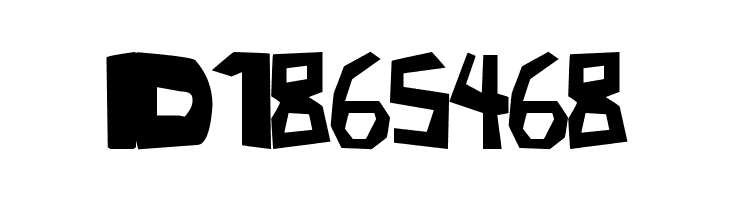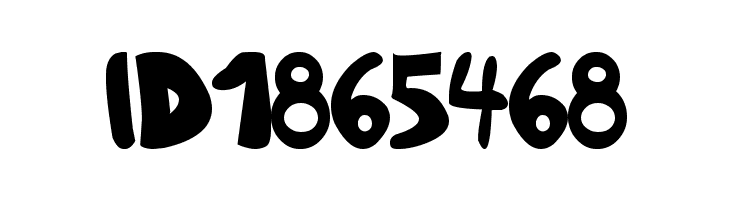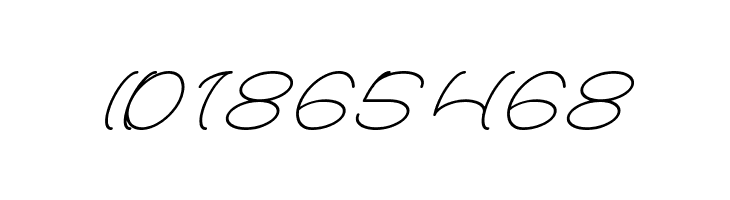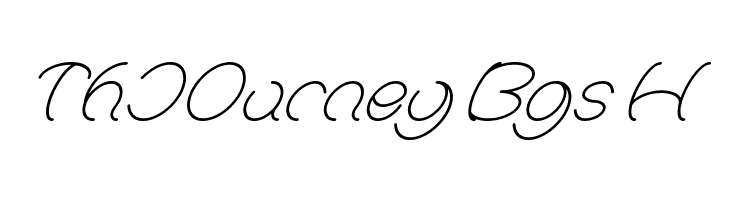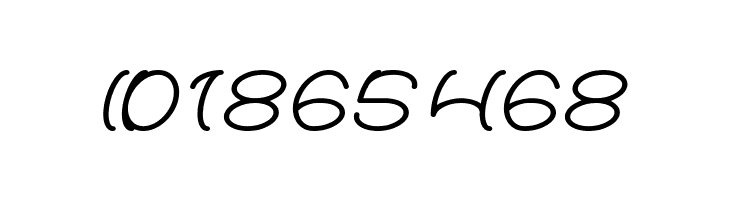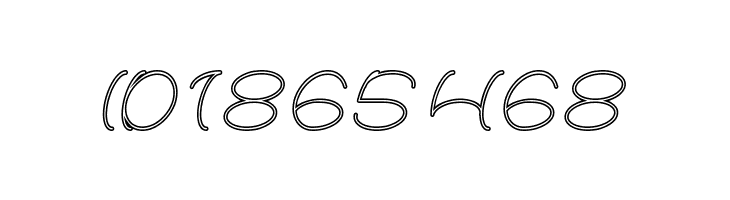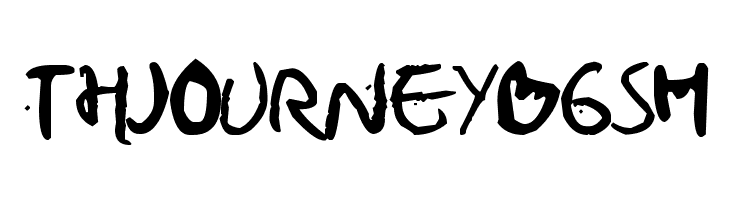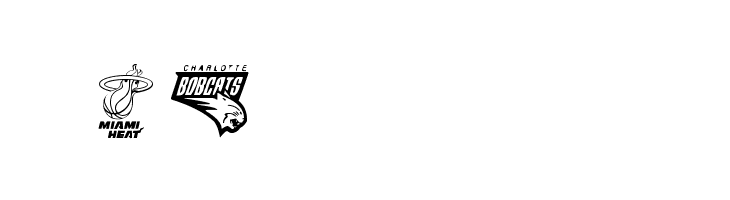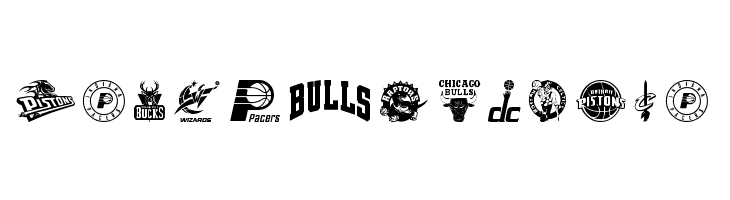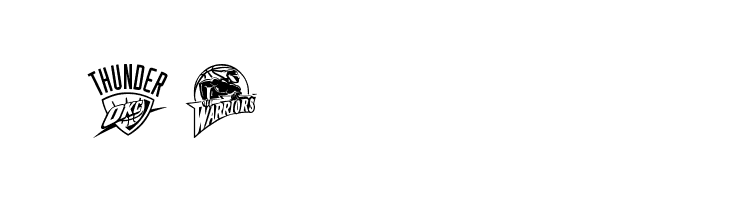
A playful, bold font with rounded, decorative letterforms.
A dynamic, cursive script font with a handwritten feel.
A graceful script font with flowing, cursive lines and elegant flourishes.
An elegant, flowing script font with a handwritten style.
A bold, decorative font with leaf and vine embellishments, perfect for creative projects.
A playful and elegant handwritten script with flowing, interconnected strokes.
A playful, bold script font with a whimsical, hand-drawn style.
A playful and elegant script font with decorative swirls and loops.
A bold, playful handwritten font with thick, rounded strokes.
A playful, hand-drawn font with rounded edges and a whimsical style.
A playful, hand-drawn outline font with a whimsical and casual style.
A lively, handwritten font with fluid strokes and playful curves.
A sleek, modern font with clean, geometric lines and a minimalist style.
A playful, bold, and hand-drawn font with rounded strokes and a dynamic slant.
A modern, flowing script font with elegant, slanted characters.
A playful and whimsical font with dynamic, slanted letterforms.
A bold, playful handwritten font with thick strokes and dynamic shapes.
A playful, handwritten font with rounded edges and a casual style.
A playful, handwritten font with rounded, slightly irregular letterforms.
A playful and whimsical font with bold, dynamic letterforms and a unique style.
A playful and whimsical font with bold, slightly condensed uppercase letters and rounded lowercase letters.
A playful and whimsical font with a blend of curves and angles.
A dynamic and flowing script font with connected letterforms and a modern classic appeal.
A bold, shadowed font with a playful and dynamic style.
A classic serif font with elegant curves and sharp serifs, ideal for traditional and stylish designs.
A bold, playful font with rounded edges and a slightly condensed structure.
A graceful script font with elegant, flowing lines and high contrast.
An elegant and flowing script font with refined cursive letters.